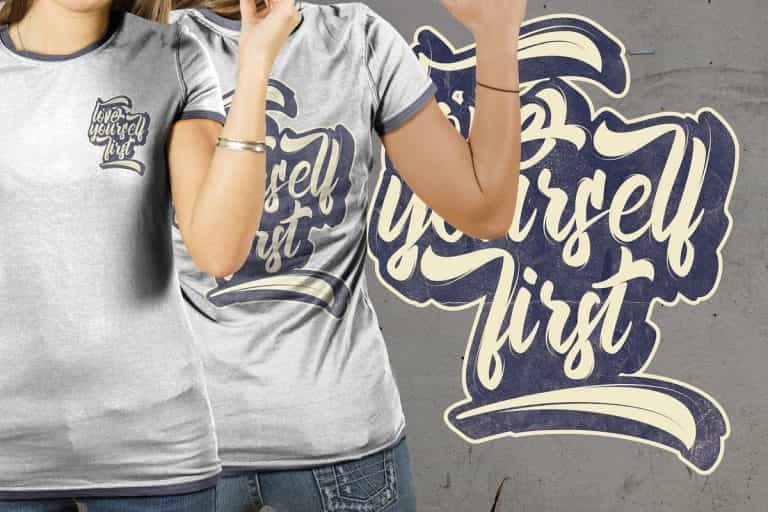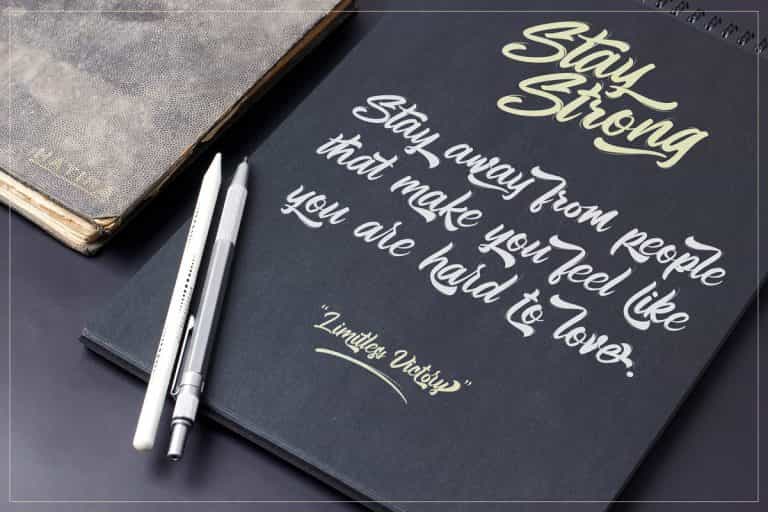
Bellsmore Font – This is a handwritten font written with a brush pen. It can be used in ink or watercolor based designs and as bold hand-brushed lettering on its own. Bellsmore was designed and developed by Rochart. Bellsmore Font is a font that has more of the alternate and some swashes. This fonts are made to be used together and to each other. Bellsmore brush script is great for logo design, t-shirts, flyers, apparel,packaging ,advertising,wedding Invitations and so on.